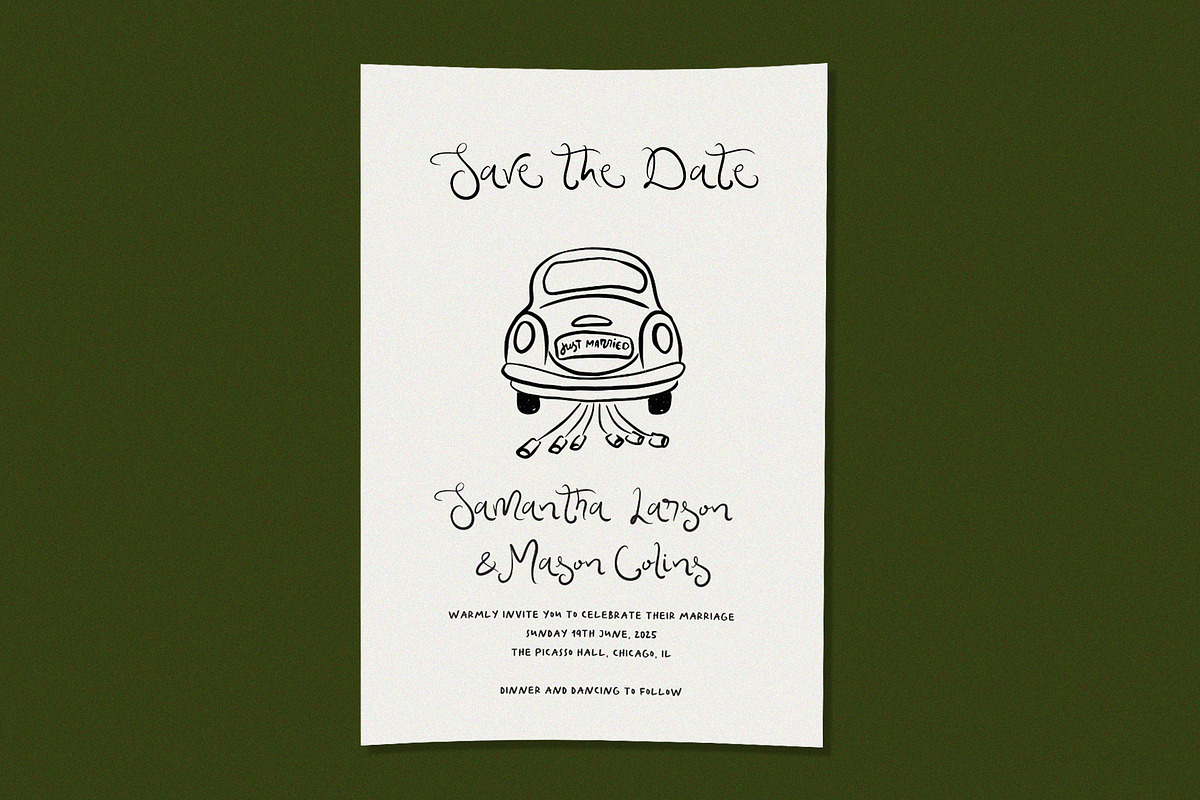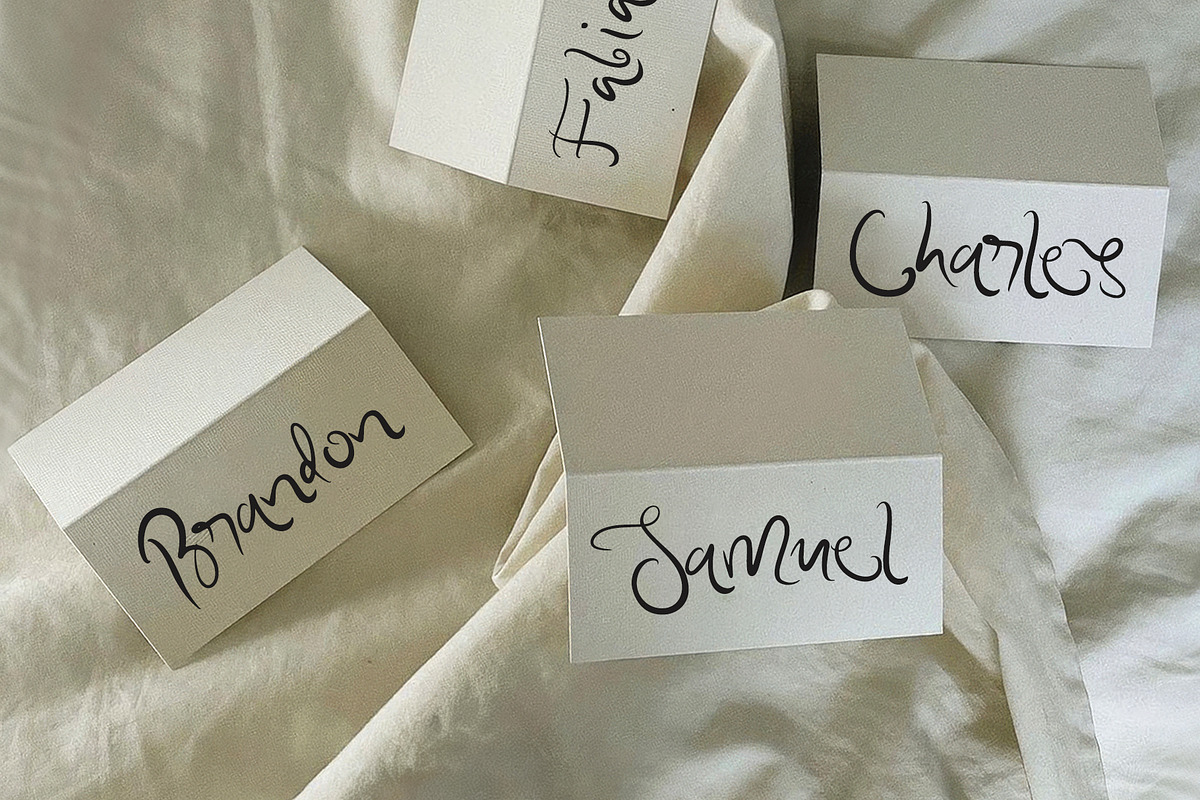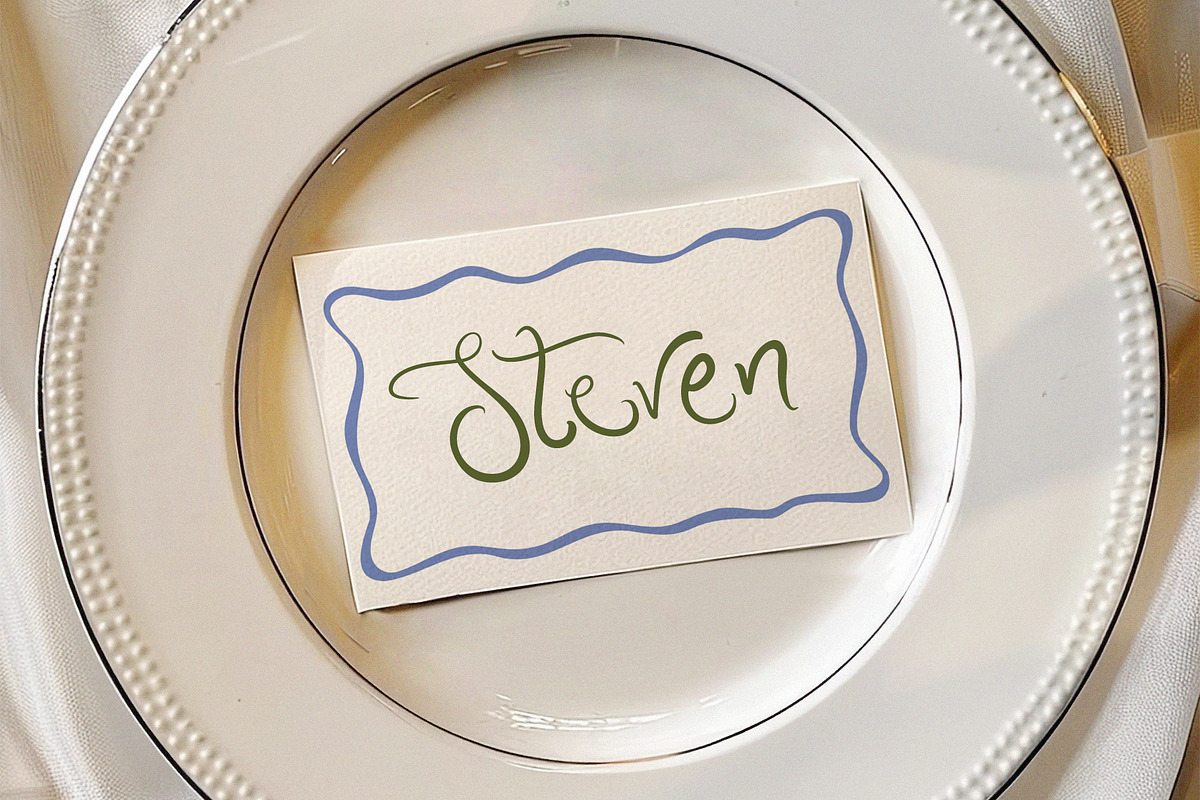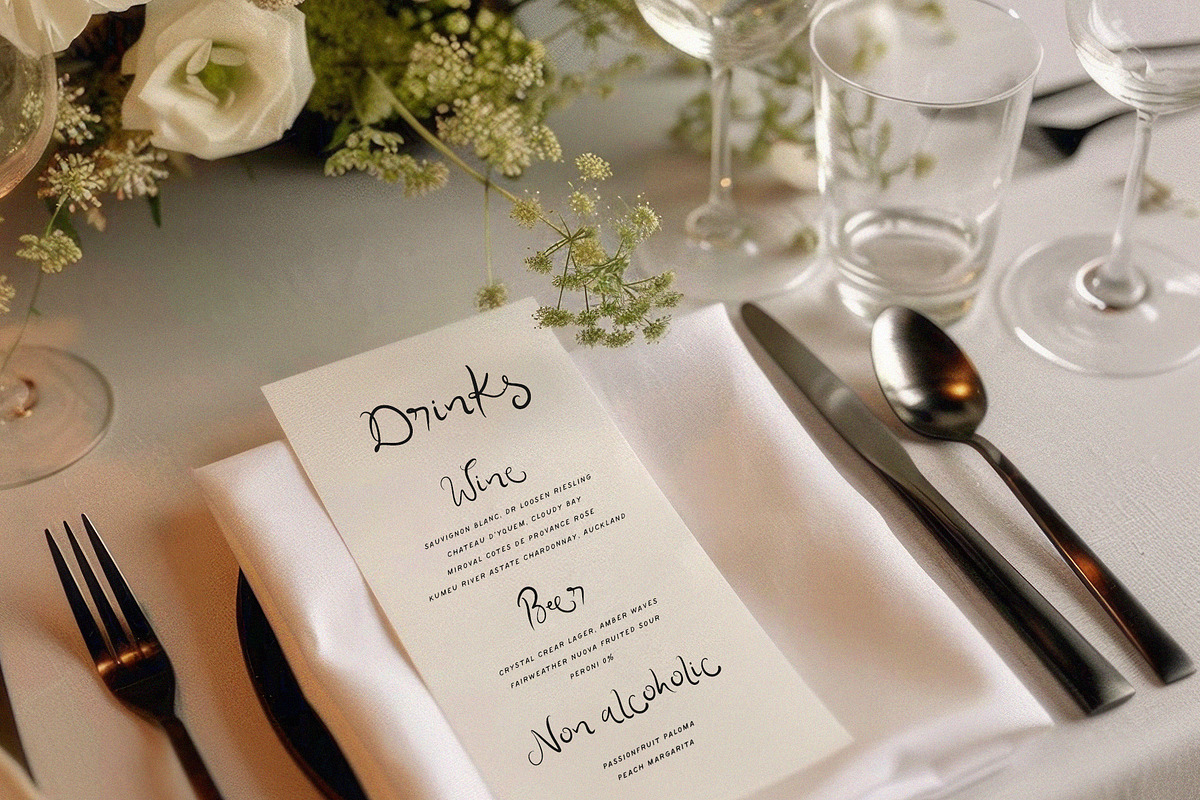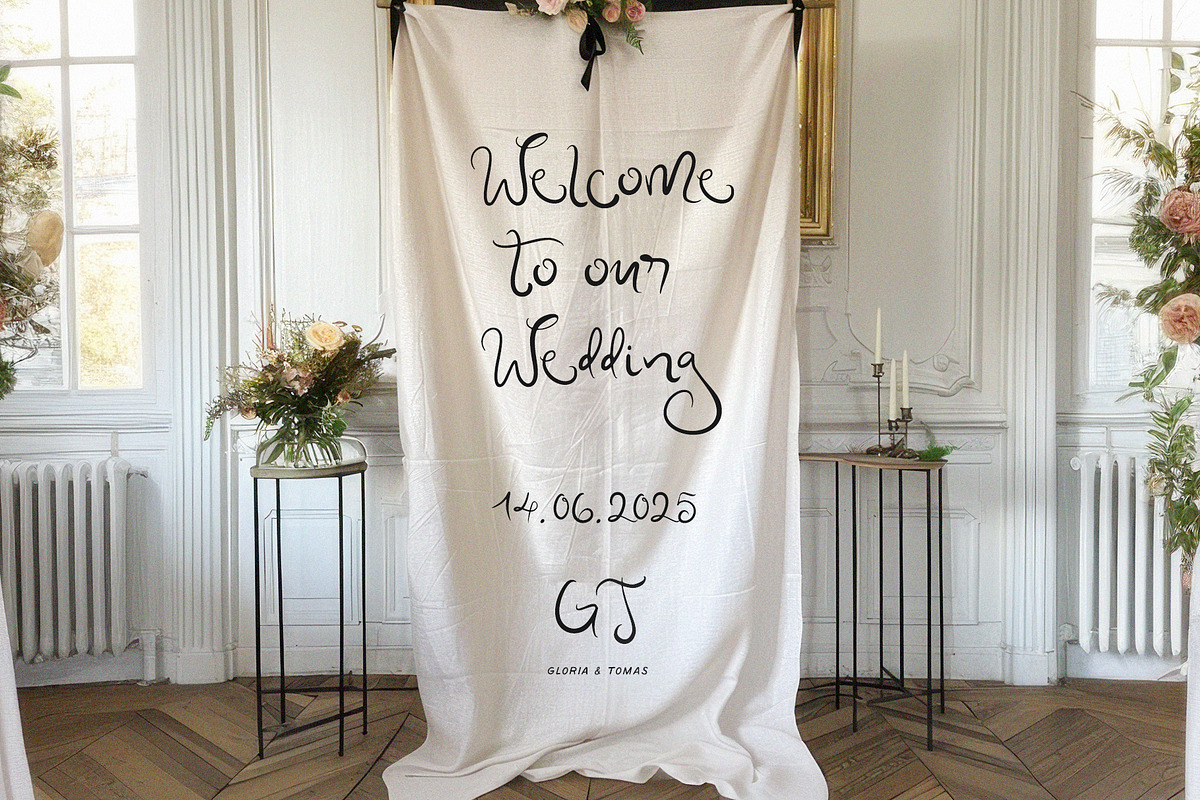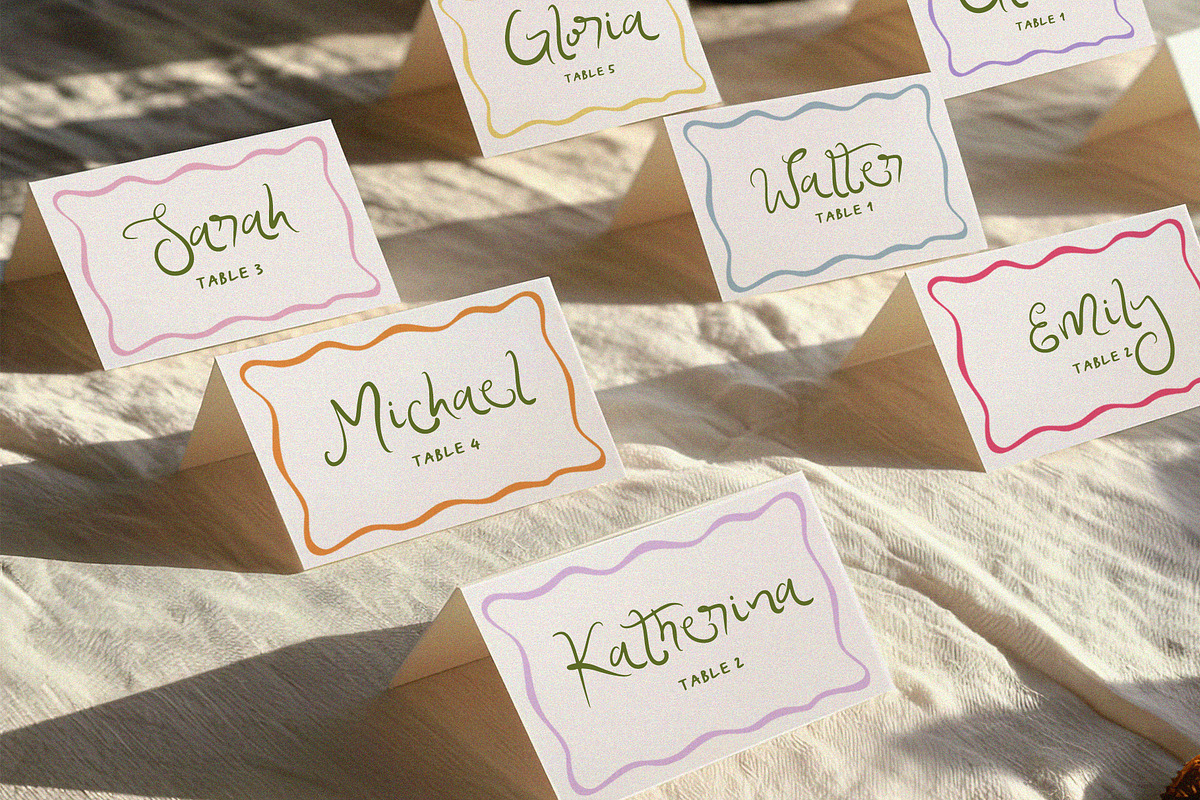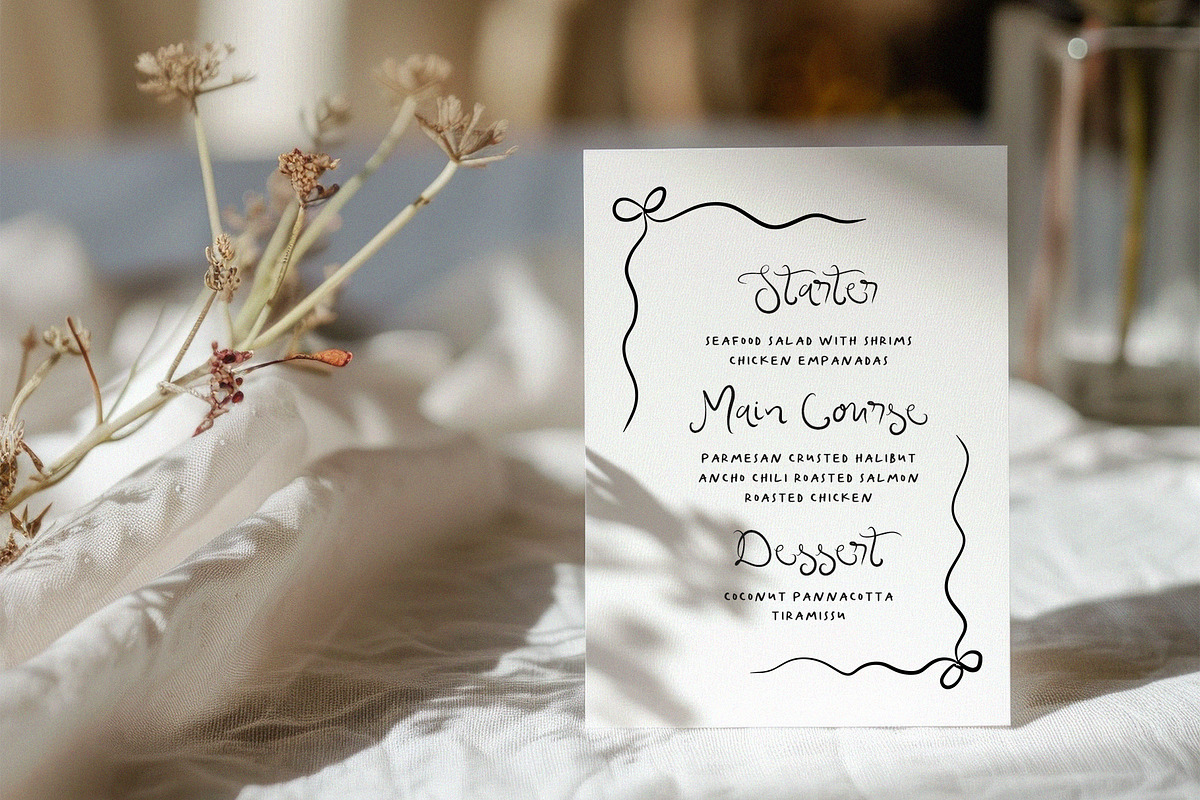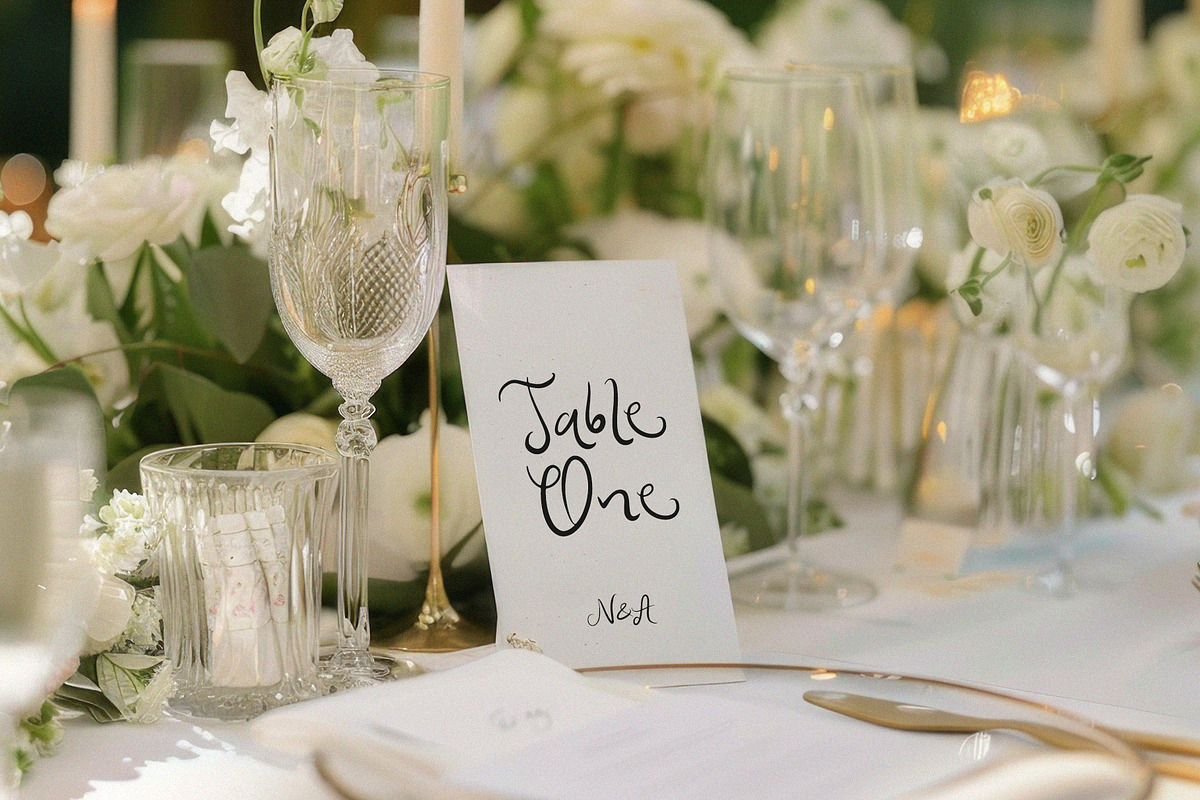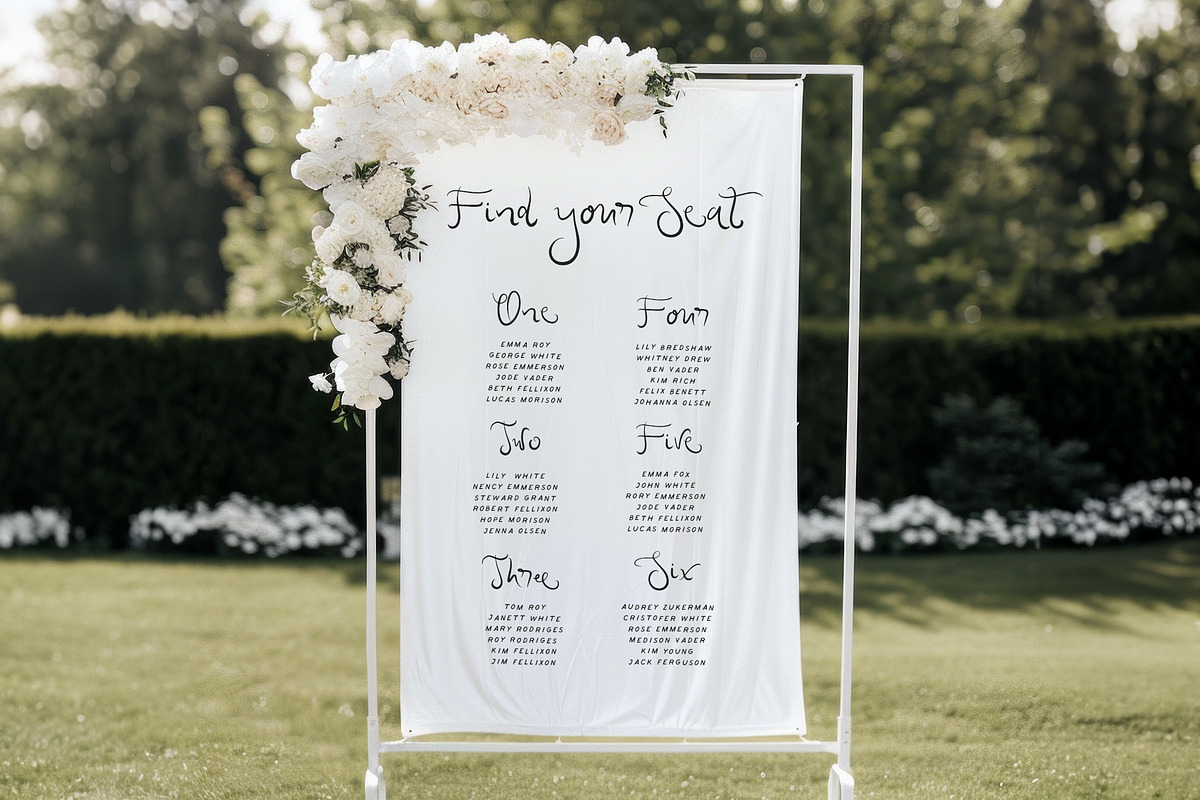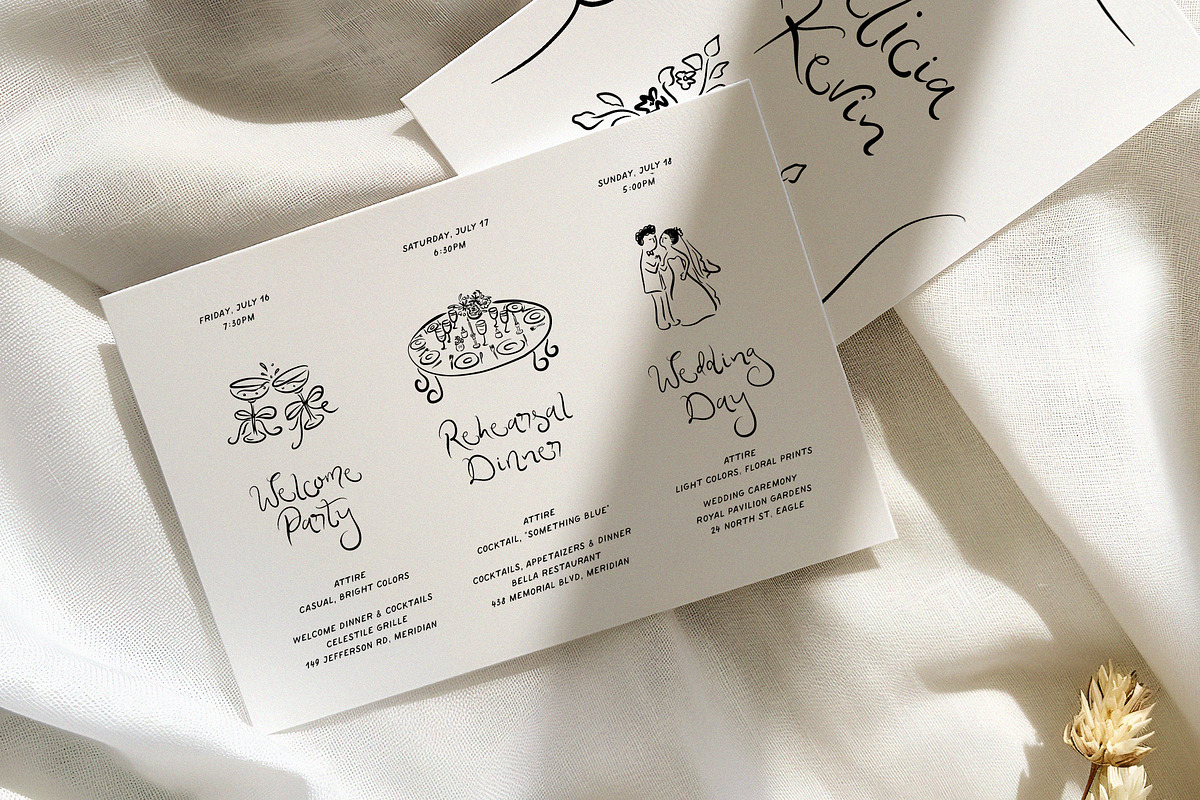
Ms Scarlett Handwritten Whimsy Font
Say hello to the new Whimsical Wedding Font that ideally suited for your wedding bespoke invitations in 2024-2025 wedding season. Ms Scarlett perfectly combines with Whimsical Love Collection https://creativemarket.com/calamarstudio/279229683-Whimsical-Wedding-Illustrations-SVG